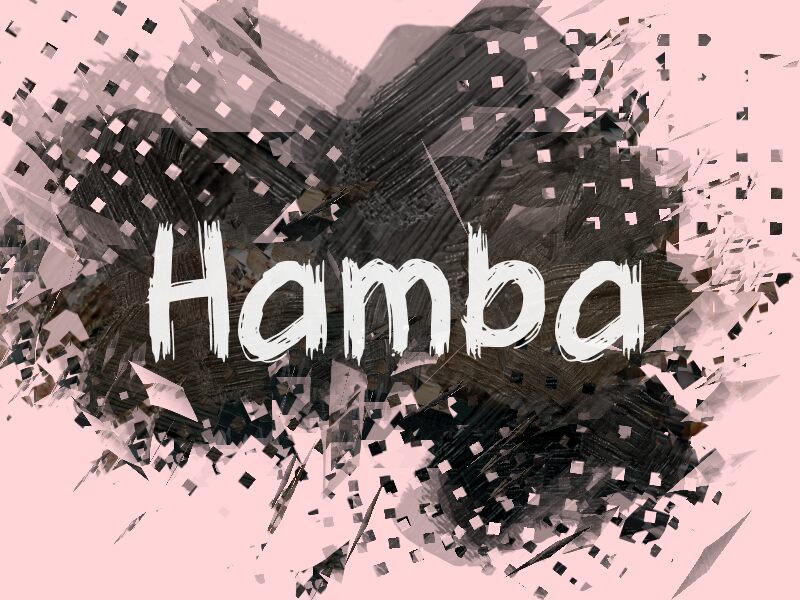
Hamba
Hamba font by wep captures the spontaneous energy and artistic flair of hand-drawn brush strokes. Its bold design and brush-like texture evoke an expressive feel and dynamic appearance, making it ideal for projects with an informal mood. This free font will add authenticity, creativity, and a unique touch to your brand.
Use Hamba for branding an edgy business or advertising targeting youth such as social media marketing. Create merch designs, signage, logos, stationery items like invitation cards or menus for trendy restaurants using this font. Magazine titles will stand out while packaging designs especially those focused on creative products or streetwear fashion are given a distinctive touch highlighted with Hamba’s textured style.